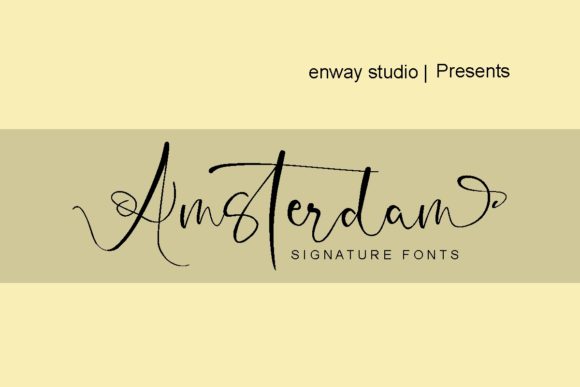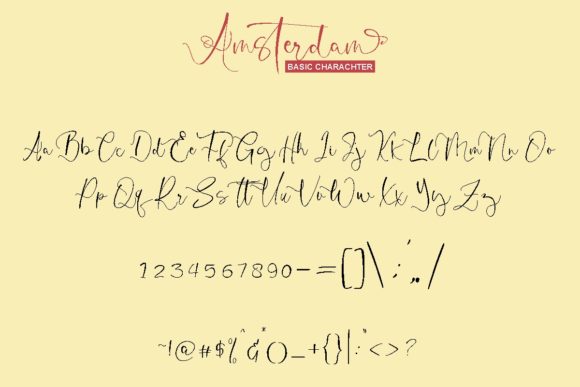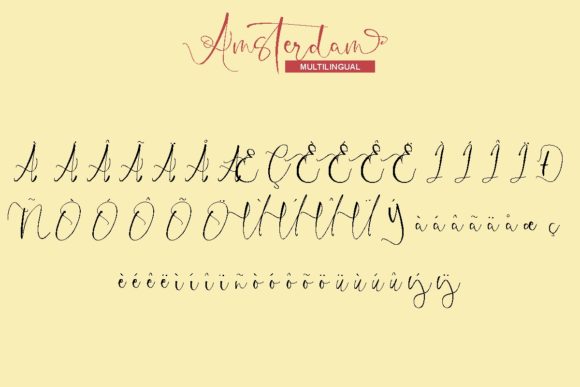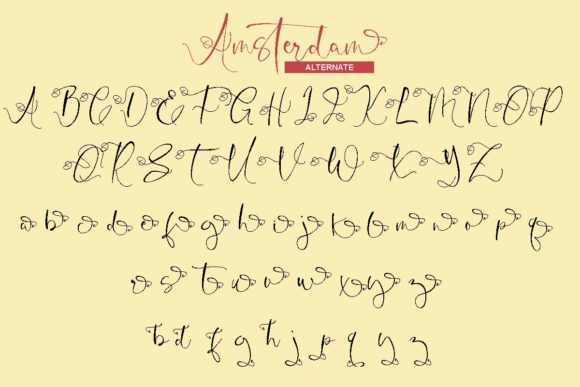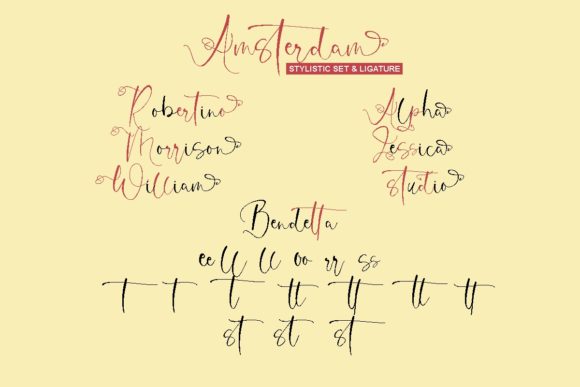
Amsterdam Font
“Amsterdam” sounds like a stylish and genuine calligraphy font that offers versatility and uniqueness. With its elegant and authentic appearance, this font is a perfect choice for a wide range of design applications, making it a valuable asset for various projects.
By using “Amsterdam” in your designs, you can achieve a sense of sophistication and charm. Its calligraphy style adds a personal and artistic touch, making your creations feel more elegant and captivating.
This font’s versatility shines through, making it suitable for various design contexts. Whether you’re working on greeting cards, invitations, posters, headlines, or any other project, “Amsterdam” can effortlessly enhance the visual appeal and create a unique atmosphere.
With “Amsterdam,” you have access to a wide range of glyphs and swashes, thanks to its PUA encoding. This feature allows you to explore various stylistic variations and decorative elements, giving you creative freedom to customize the typography according to your vision.
Incorporate “Amsterdam” into your designs, and you’ll see how it adds a touch of style and authenticity, making your projects visually stunning and captivating.
While embracing the calligraphy and stylish nature of “Amsterdam,” remember to maintain readability and legibility. Proper spacing and alignment between letters ensure that the text remains clear and easy to read, preserving the font’s overall elegance and genuine appeal.
In conclusion, “Amsterdam” is a stylish and genuine calligraphy font that can add a unique feel to your designs. Embrace its versatile and elegant appearance, and let it be the font that adds sophistication and charm to your greeting cards, headlines, posters, invitations, and other creative projects. With “Amsterdam,” your designs will exude a sense of authenticity and captivate the hearts of your audience, making them truly exceptional and visually captivating.